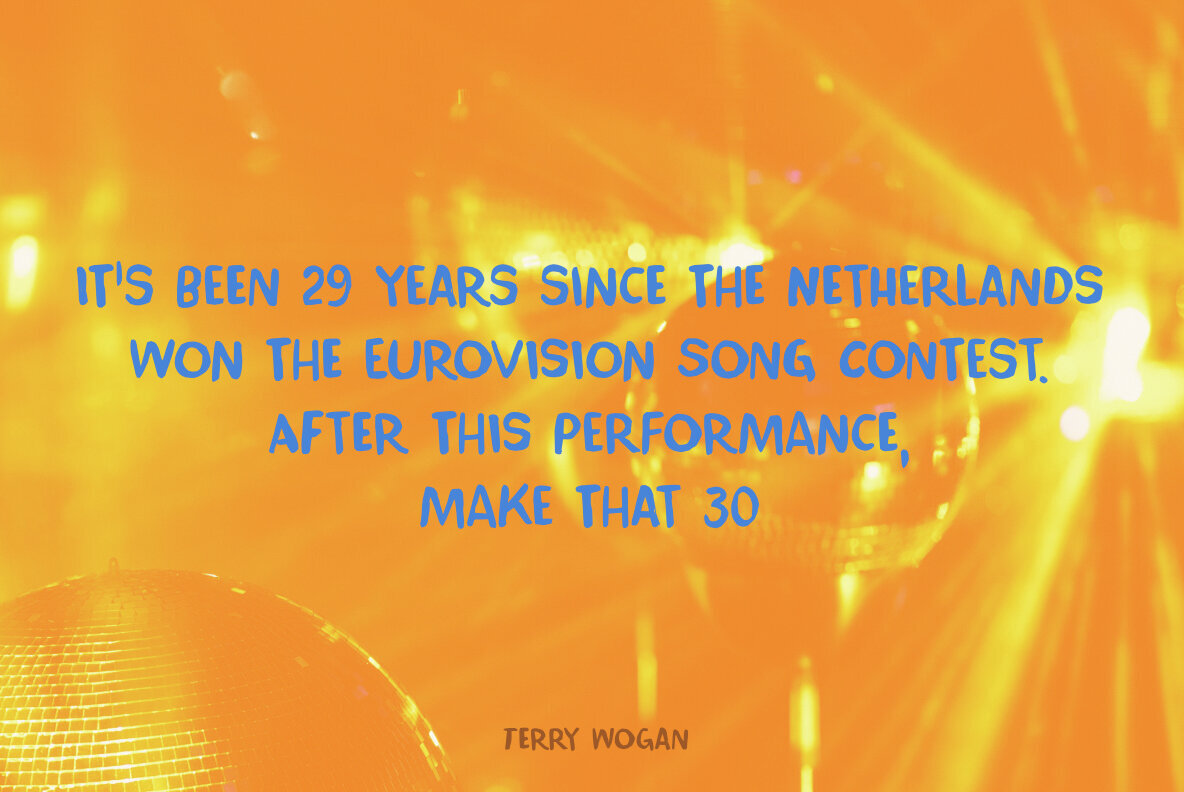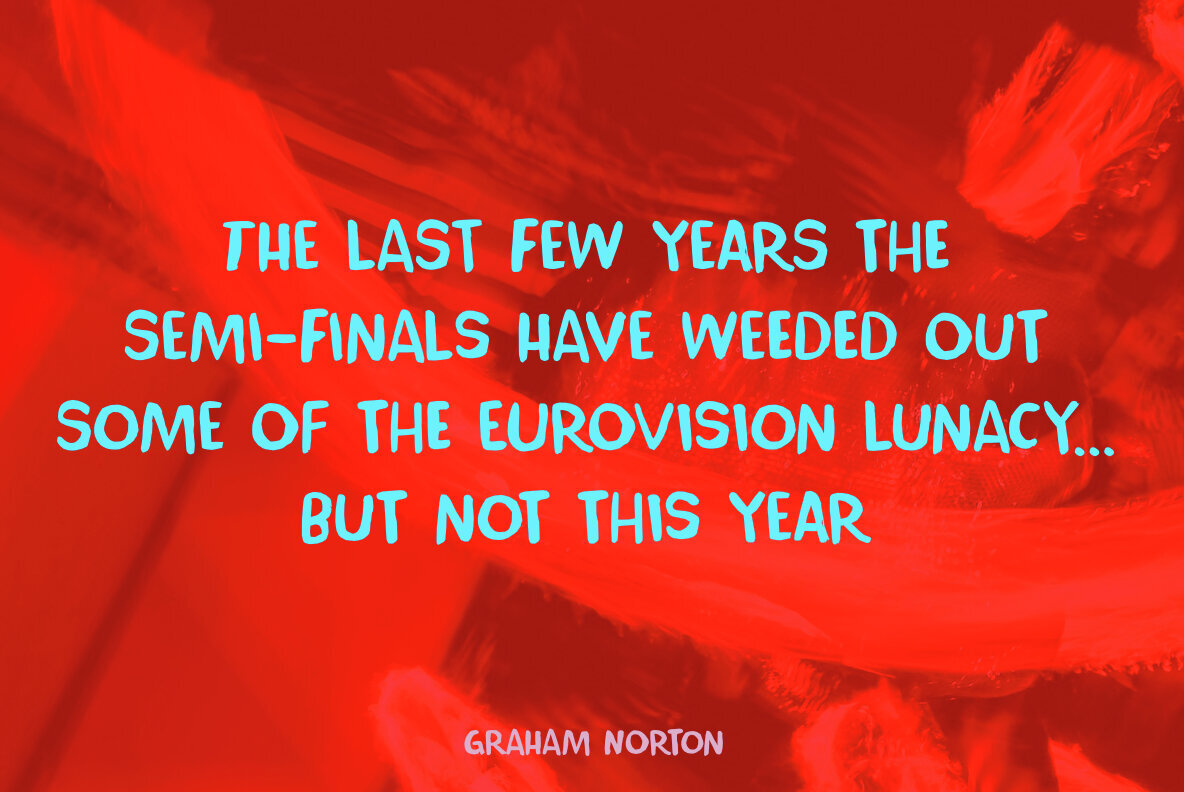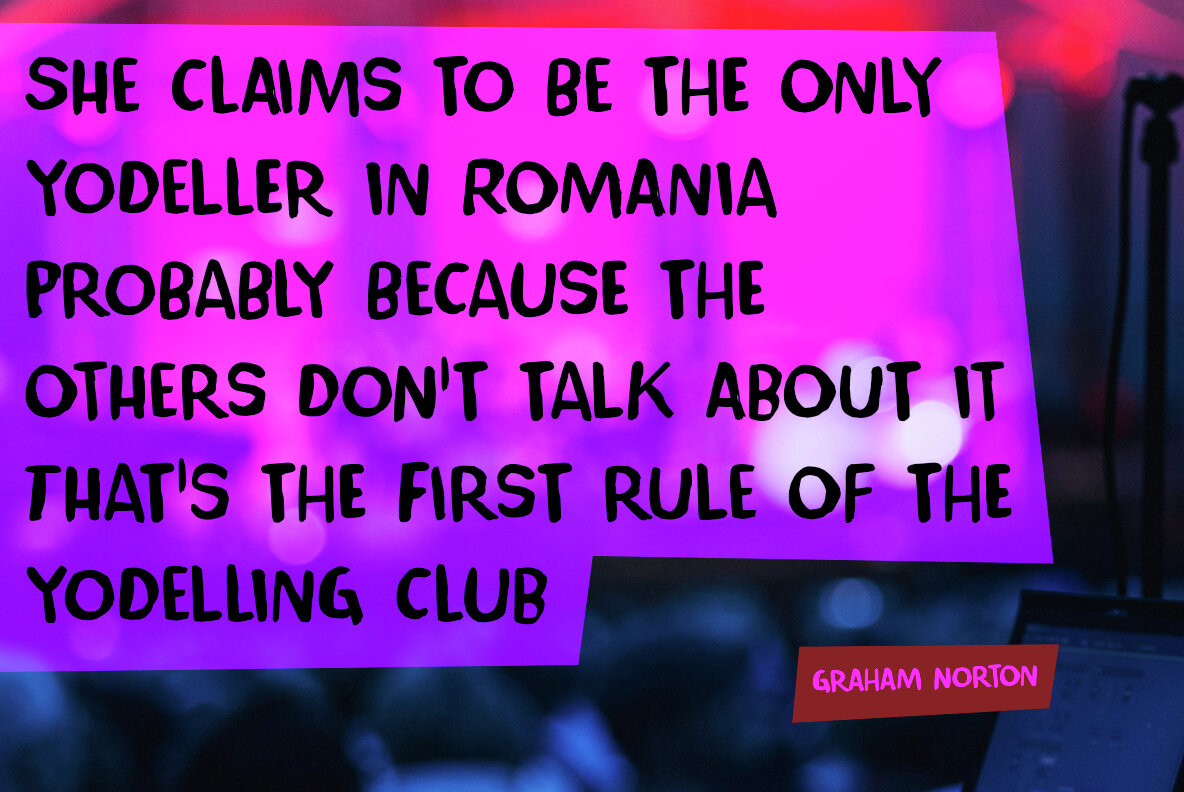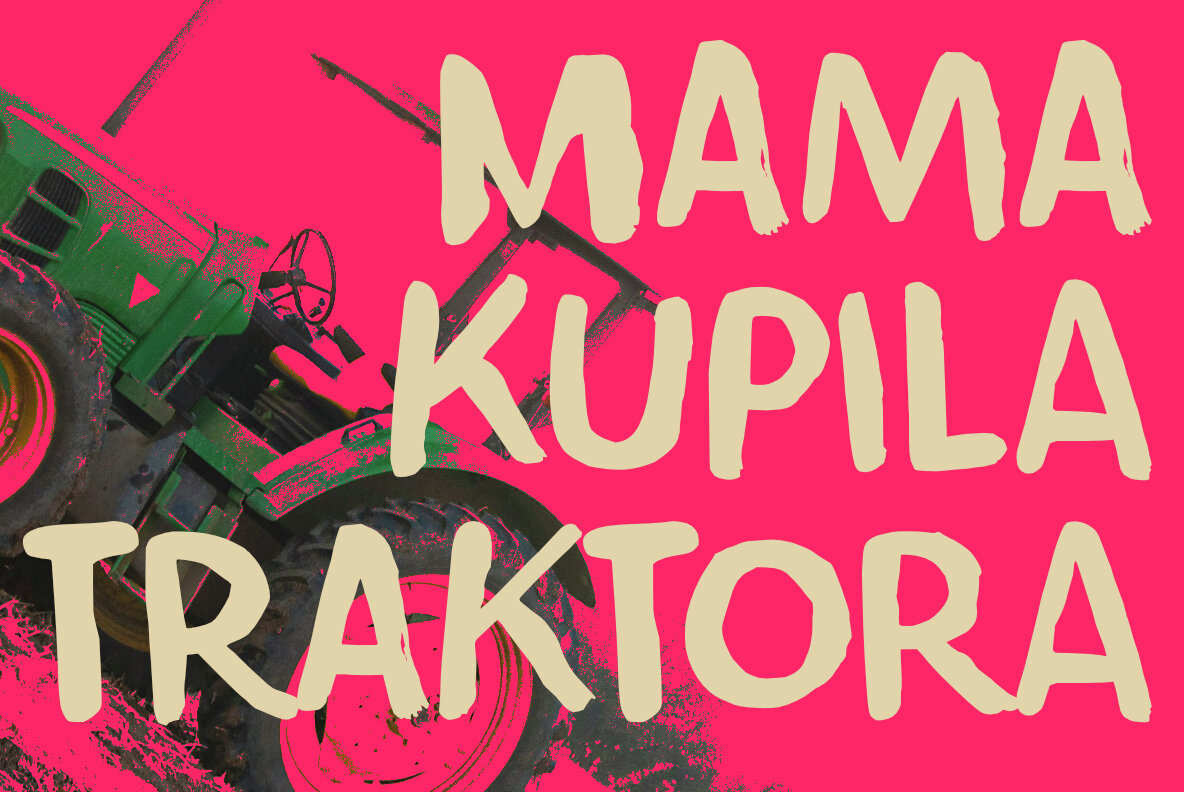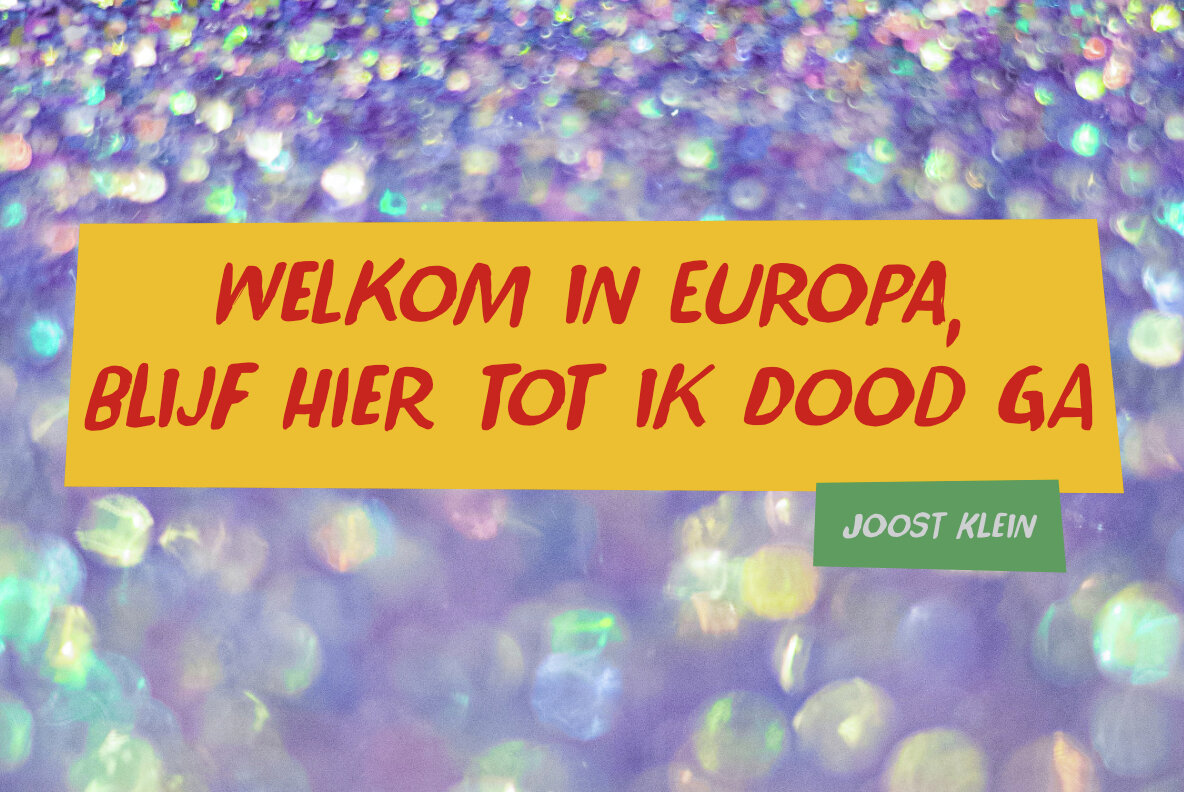
Broadcast Mayhem Font
Broadcast Mayhem Regular
Broadcast Mayhem Italic
I like watching the Eurovision Song Contest. Not because I love the music, but because it usually promises an evening full of kitsch, over the top drama and political sideswiping; in other words, a welcome change from the drab programming we have here in Holland. This year was a bit of a disaster, as the show had protests, innuendo and a Dutch contestant who got kicked out half way. Broadcast Mayhem is a nice, all caps, handmade font. If you are familiar with my fonts, you will probably think: ‘made with Chinese ink and a cheap brush??’. No! It was made with black gouache paint (and a cheap brush - you had that right).